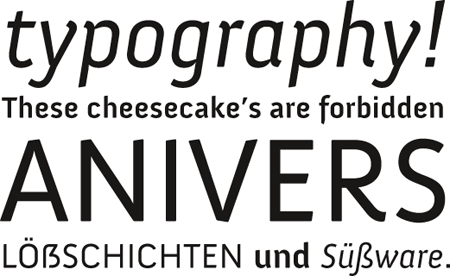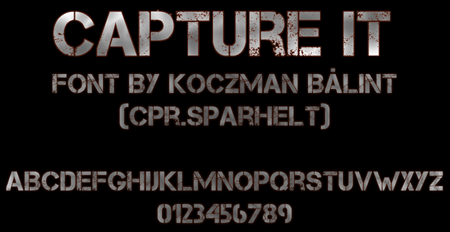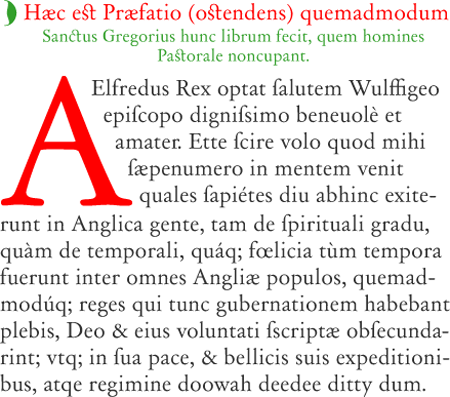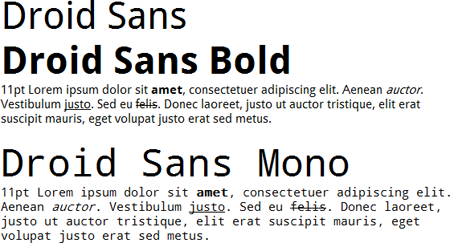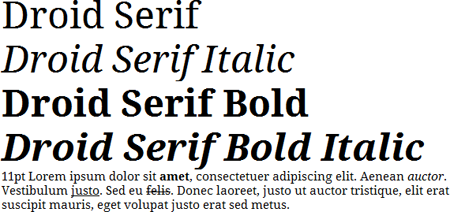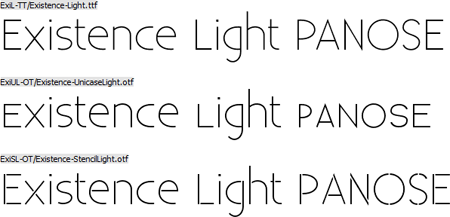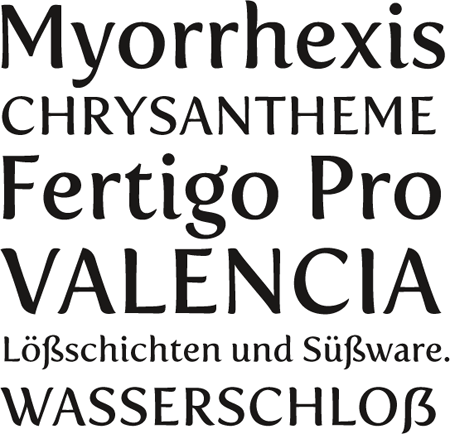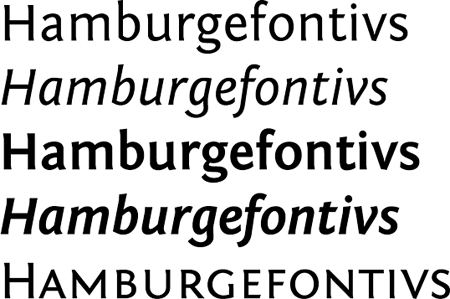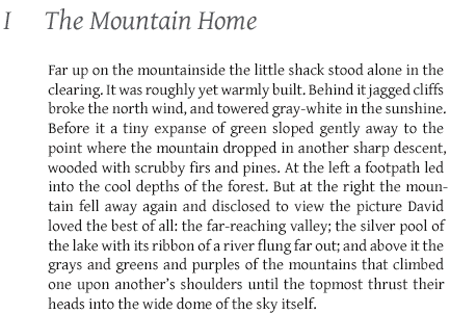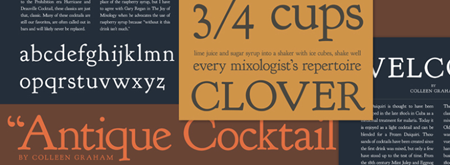
Free For All: Free Fonts Galore (Part 2)
Body Copy and Headline
These typefaces have the clean legibility required for use in high density such as in body copy, or they’re suited for large-size display in headlines.
Anivers
Capture It
Day Roman
District Thin
Droid Sans
Droid Serif
Existence Light
Fertigo Pro
Fontin Sans
Gentium
Goudy Bookletter 1911
Heavy Diacritics
Jura
Just Old Fashion
Liberation Serif
Lido STF
Mank Sans
Museo Sans
Museo Sans Rounded
Nadia Serif
Pico, Twitter logo font
Resonance Bold
Sniglet
Steiner
Wrexham Script
Industrial Fonts
Always one of my favorite classifications of typefaces, industrial is clean, sharp, and dually futuristic and retrograde at the same time.
Aldo
Days
Dekar
Dynomite (4 fonts)
Franchise
Greyscale
Groovy Fast
Ignis et Glacies Sharp (4 fonts)
Libel Suit
Neuropol X Regular
Orbitron
Techno Overload
Telegrama
Ultra Condensed Sans Serif
You’re Gone
Grunge Fonts
Grimy, worn, torn, and stepped on best describe the feeling evoked by grunge typefaces, making them perfect for any project that isn’t gleaming, new, refined, or uppercrust.
84 Rock!
Angelic War
AntiGlare
Birth of a Hero
Dirty and Classic
Laundromat 1967
Times New Yorker
Handwritten & Handdrawn Fonts
Nothing conveys that personal, homemade touch quite like handdrawn type and fonts created directly from real people’s handwriting.
FFF Tusj
Hand of Sean
Honey Script
Joe Hand 2
Memos Hand
Note This
Philippe
Script of Sheep
Umberette
Walt Disney Hand
What Do We Do All Day
Symbols and Dingbats
The irony of symbols and dingbats presented in font form is that a pictogram is often worth a thousand words.
AIGA Symbol Signs (EPS and GIF format)
Dingbests
Hazard
Pictogramz
Symbol Signs
Wash Care Symbols
Eclectics
The following assortment isn’t easily sorted into the other classifications, so I’ve made them their own little group.
Automania
Deftone Stylus
Fenotype
Futurex Slab
Groove Machine
Group Sex
Jungle Leaves
Knit Font
MOD
XMinus